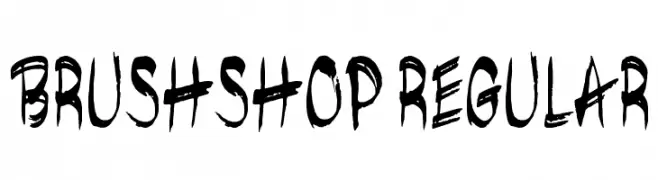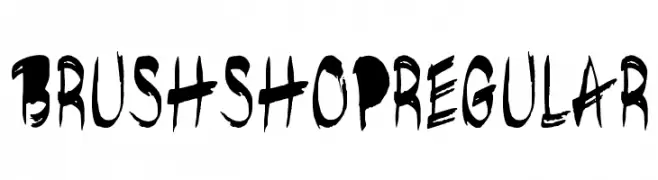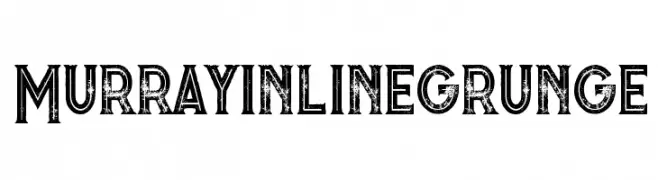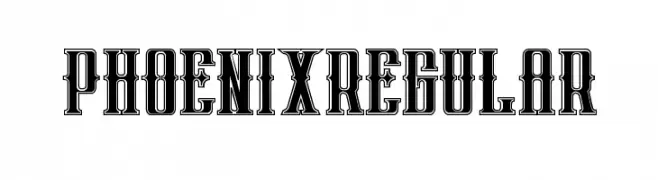
A bold, dynamic font with a three-dimensional effect and a sense of motion.
An elegant, cursive font with intricate curves and flourishes.
A lively, cursive script font with bold, flowing strokes.
A lively, handwritten cursive font with a playful and energetic style.
A classic serif font with decorative swashes and intricate detailing.
A classic serif font with decorative flourishes and intricate details.
A bold, decorative font with intricate detailing and a three-dimensional effect.
A bold, decorative font with a vintage, Western-inspired style.
A bold, outlined font with a playful yet structured design.
A bold, outlined font with a geometric and modern design.
A bold, outlined font with a modern, geometric style.
A bold, dynamic script font with interconnected characters and expressive strokes.
A bold, hand-painted style font with expressive, uneven edges.
A bold, hand-painted style font with dynamic, brush-like strokes.
A playful, brushstroke-style font with a lively and artistic design.
A decorative, brush-like font with organic, fluid forms and a whimsical style.
An ornate and decorative font with intricate inline detailing and swirling embellishments.
An ornate and decorative font with intricate inline details and flourishes.
An ornate, decorative font with intricate swirls and embellishments.
An ornate and decorative font with intricate swirls and embellishments.
A bold, textured font with a rugged, hand-painted appearance.
A bold, textured font with a hand-painted, rugged style.
A bold, decorative font with vintage Art Deco influences and inline detailing.
A vintage serif font with elegant inline detailing and Art Deco influences.
A thin, grunge-style font with a textured, vintage appearance.
A bold, distressed font with a grunge effect and inline design.
A grunge-style font with an inline design and decorative serifs, offering a vintage and textured appearance.
A bold, geometric font with a futuristic and modern design.